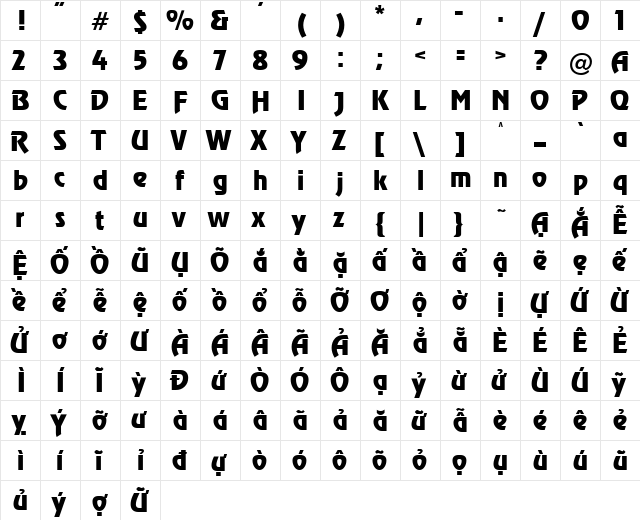
VI Phu Dung Medium
Design Context for VI Phu Dung Typeface
VI Phu Dung offers clean, dependable letterforms without strong stylistic allegiance, making it a practical choice for designers who need flexibility.